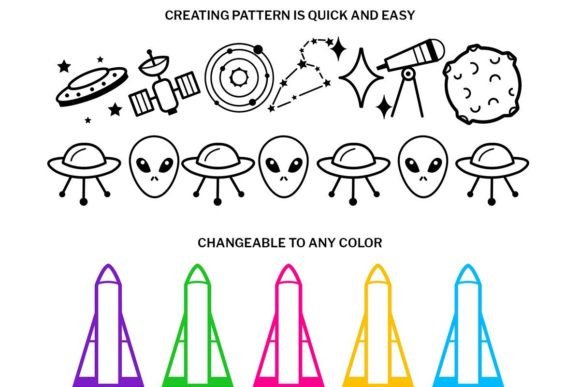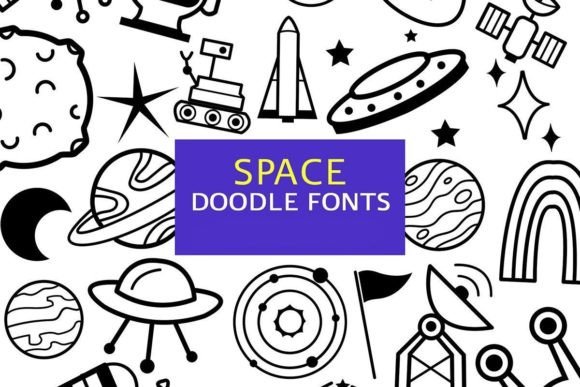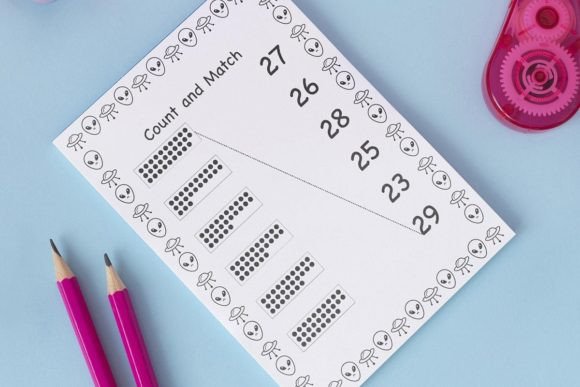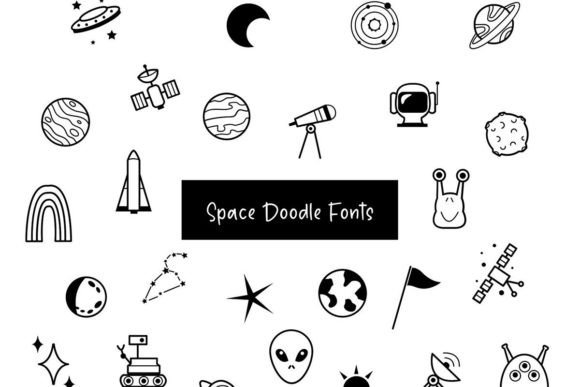
Space Doodle Font
About Space Doodle Font
The Space Doodle font is a fantastic dingbat font that brings a sense of fun and wonder to your projects. As the name suggests, this font is filled with doodles and illustrations inspired by outer space, making it the perfect choice for projects related to astronomy, science fiction, space exploration, and more.
With its versatile collection of space-themed doodles, the Space Doodle font offers endless possibilities for your creative endeavors. Whether you’re designing posters for a space-themed event, creating invitations for a science fiction party, crafting illustrations for educational materials about the solar system, or even designing a quirky logo for a space-themed brand, this font provides a wide range of delightful graphics to add a playful and whimsical touch to your designs.
One of the great advantages of the Space Doodle font is its versatility. You can use it in various projects such as scrapbooking, card making, or digital designs to create charming space-themed elements. The doodles can be used as decorative accents, borders, or even as standalone illustrations, allowing you to create visually captivating compositions that evoke the mysteries and beauty of the cosmos.
For educational purposes, the Space Doodle font can be a valuable tool to engage and inspire students in subjects like astronomy and space science. You can incorporate the space-themed illustrations into presentations, worksheets, or interactive materials to make learning about the universe a visually captivating and enjoyable experience. The doodles can help illustrate concepts, depict celestial bodies, or create memorable visuals that support the educational content.
Additionally, the Space Doodle font can be used in digital designs, social media graphics, blog posts, or websites related to space, science, or technology. By incorporating the charming space doodles into your visuals, you can create eye-catching and captivating content that sparks curiosity and fascination among your audience. Whether you’re sharing astronomy facts, promoting a space-related event, or simply expressing your love for all things cosmic, the Space Doodle font adds a playful and imaginative touch to your digital creations.
In conclusion, the Space Doodle font is a fun and useful dingbat font that brings the wonders of outer space to your projects. Its versatile collection of space-themed doodles allows you to add a touch of whimsy and imagination to a wide range of creative endeavors. Whether you’re designing for parties, educational materials, or digital content, the Space Doodle font is sure to inspire and delight both you and your audience. So, confidently add this font to your projects, and let the cosmic creativity unfold!